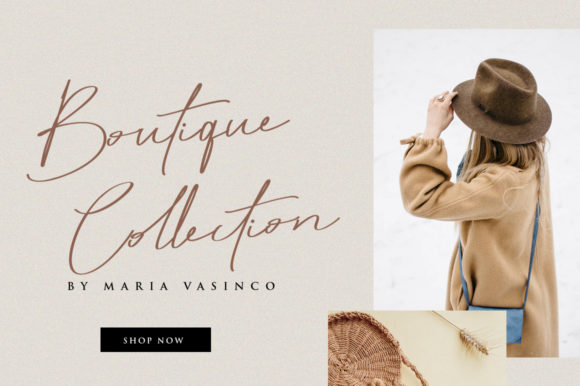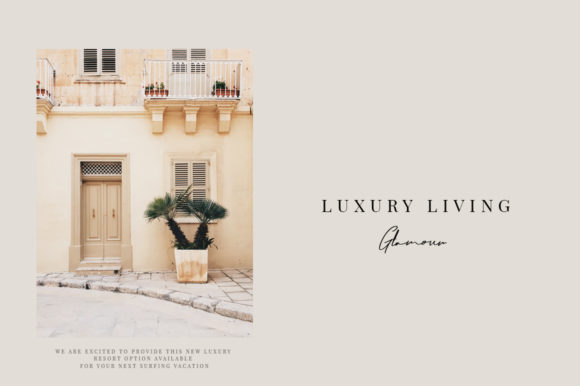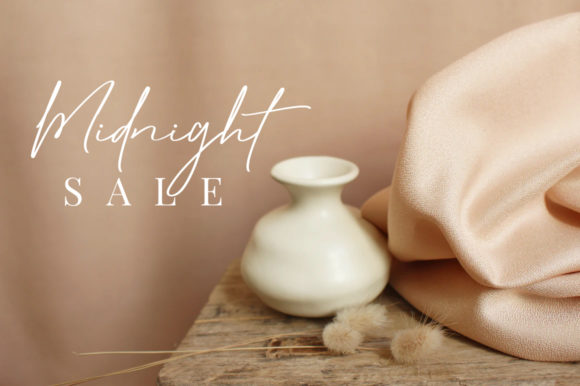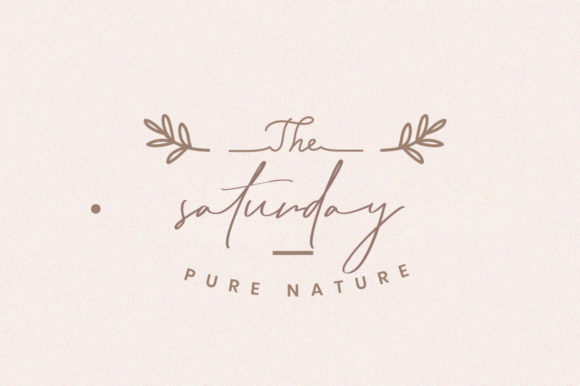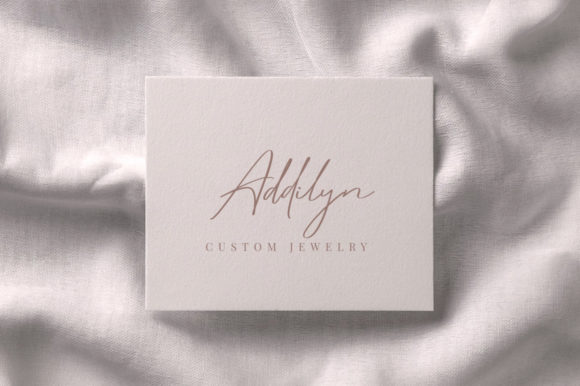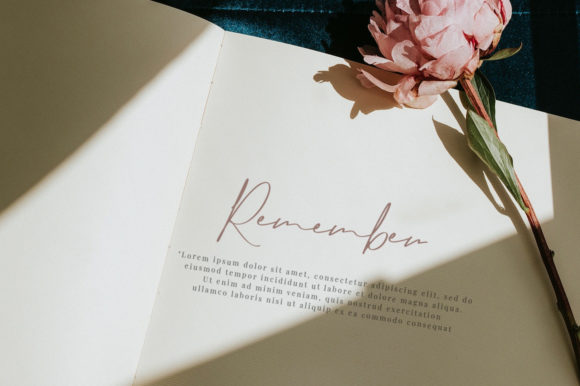
Introduction to Matt Rostine Font
There’s something special about holding a beautifully crafted wedding invitation in your hands, feeling the weight of the paper, and admiring the elegant handwriting that brings the words to life. For designers, this is a moment of pure joy – a testament to the power of high-quality design resources in making our creative projects truly unforgettable. Among the many fonts available, one stands out for its unique charm and sophistication: the Matt Rostine Font.
This exquisite font is more than just a pretty face – it’s a valuable asset for designers looking to add a handwritten touch to their work. With its varying baseline, smooth lines, gorgeous glyphs, and stunning alternates, Matt Rostine Font is the perfect choice for creating eye-catching logos, business cards, and greeting cards. And the best part? It’s available for free download, complete with a transparent background, making it a seamless addition to any design project.
Honest Review: Matt Rostine Font
I recently came across the Matt Rostine Font and I’m excited to share my thoughts on this design resource. As a designer, I’m always on the lookout for high-quality fonts that can elevate my creative projects. The Matt Rostine Font is a free download that offers a lot of potential.
- ✨ High-quality design: The font is clean, elegant, and visually appealing.
- ✨ Versatile: The Matt Rostine Font can be used for a variety of creative projects, from logos to typography-based designs.
- ✨ Transparent background: This feature makes it easy to use the font on different backgrounds and design elements.
- ⚠️ Limited character set: The font may not have the complete range of characters and glyphs needed for more complex designs.
- ⚠️ Not ideal for body text: While the font is great for headings and titles, it may not be the best choice for body text due to its condensed style.
Overall, I’m impressed with the Matt Rostine Font and I think it’s a valuable design resource for any creative project. While it may have some limitations, it’s definitely worth considering for your next design project.
The Matt Rostine Font is suitable for a wide range of creative projects, including branding, marketing materials, and editorial content. Its elegant and sophisticated design makes it an ideal choice for high-end projects.